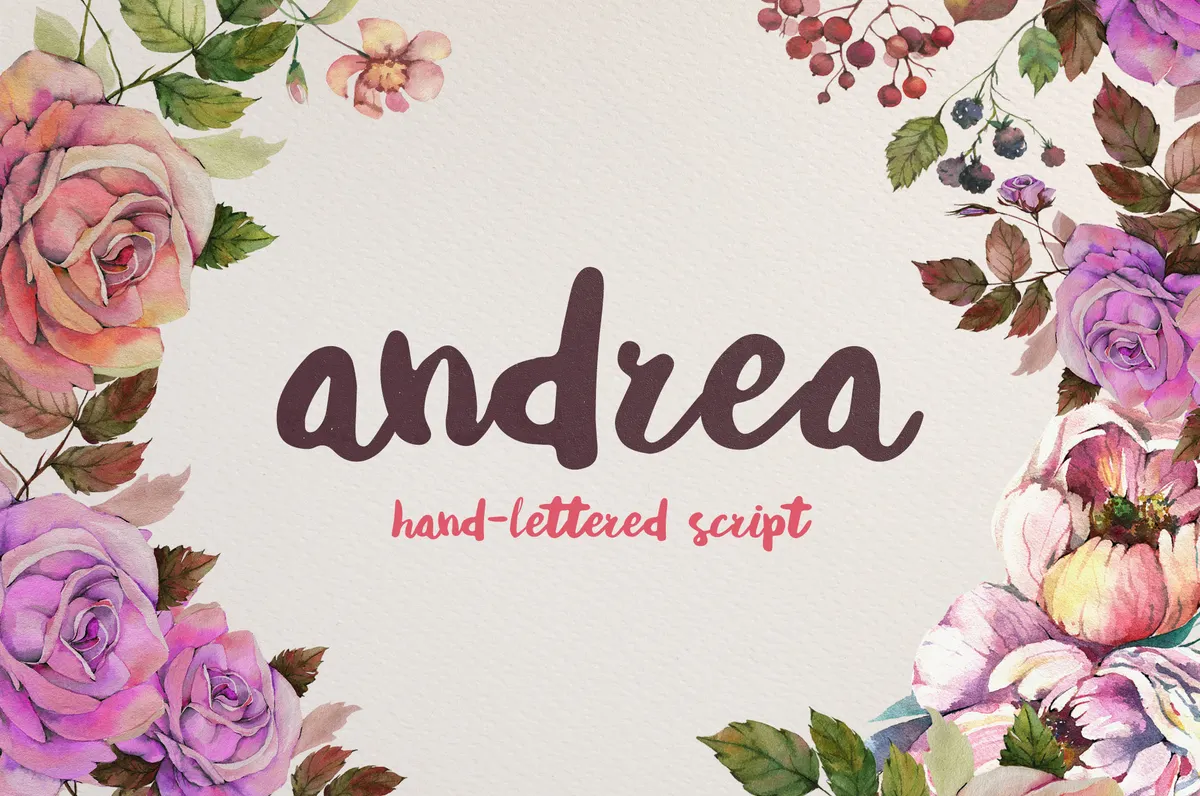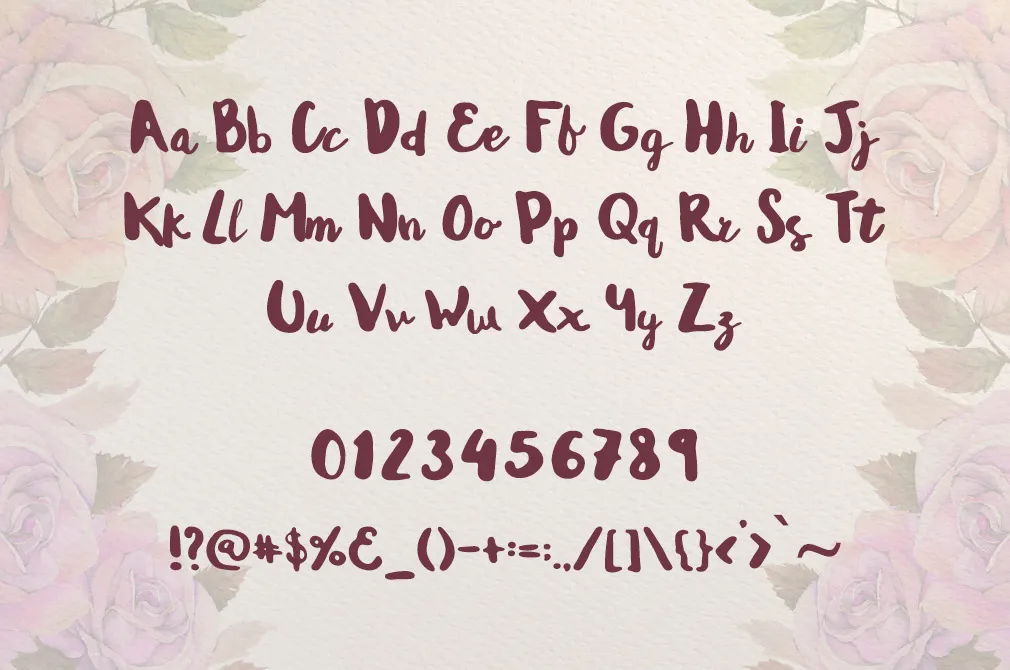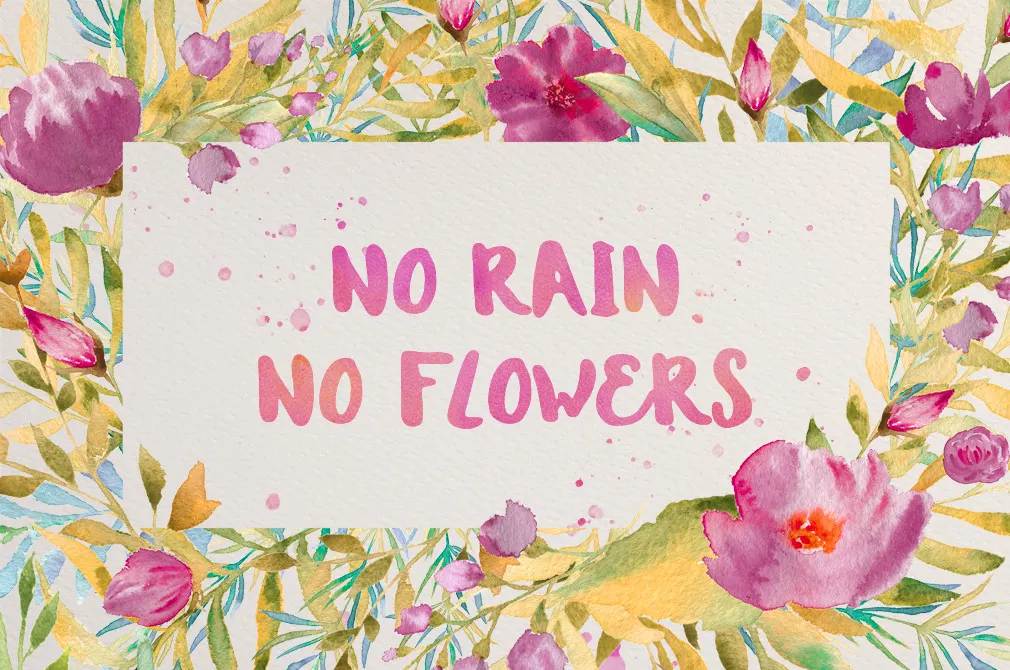
Andrea Script Font
Andrea Script is a beautiful hand-drawn font nicely crafted with love and expertise to smoothe lines and cute imperfections! Every new turn of this decorative typeface shows you a romantic story.
Packed with jaunty gliphs, numerals, and punctuation marks, this font breaths is the reincarnation of the blossom scent, tender flower leaves, and summer warmth. Such a cute chubby script for creating stunning fashion, apparel, stationery, magazines, films, and marketing with ease!